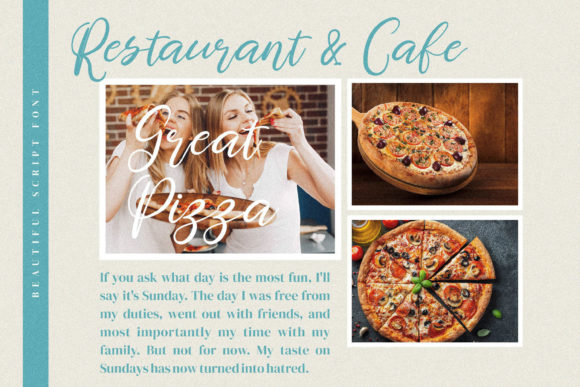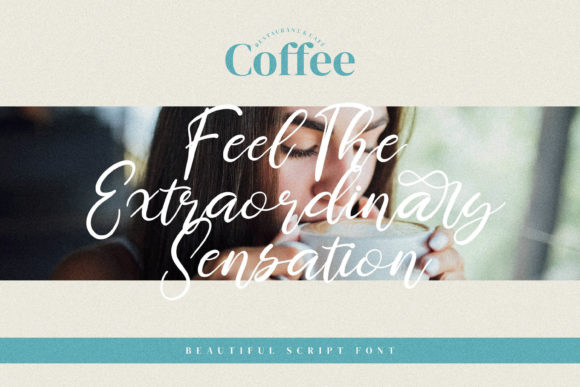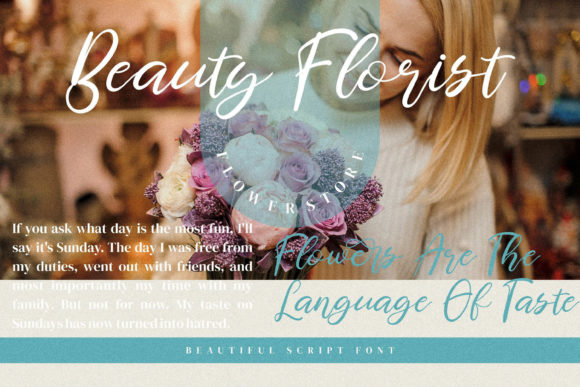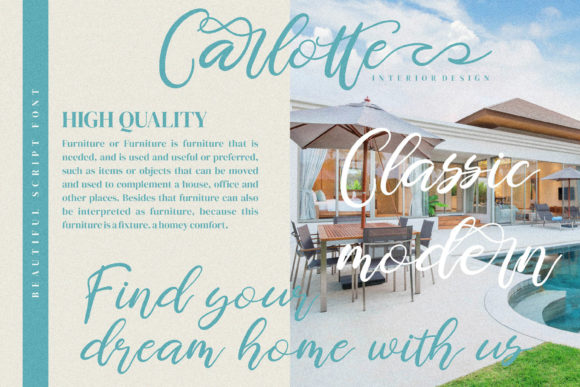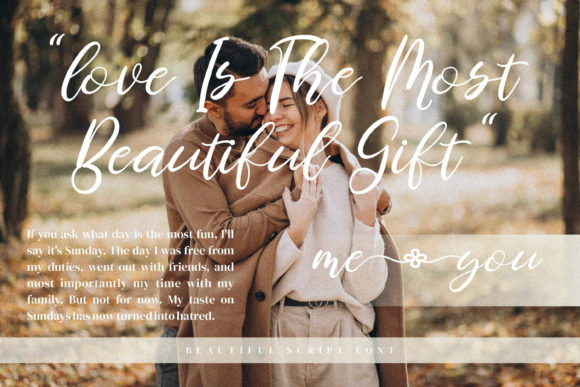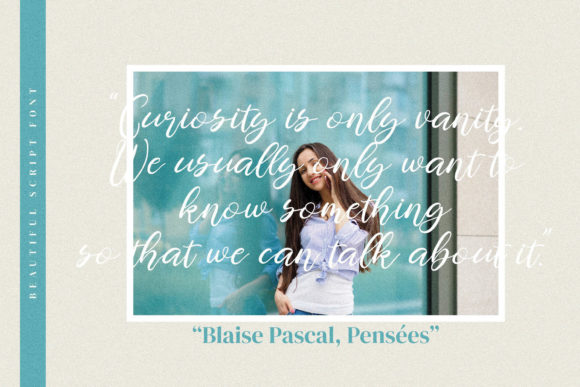
Introduction to Pettiara Font
Pettiara is an enchanting handwritten font.
This versatile script font has a wide spectrum of applications ranging from greeting cards to headlines and is guaranteed to add a romantic feel to your next project This font is PUA encoded which means you can access all of the beautiful glyphs and swashes with ease.
Pettiara Font offers exceptional quality and versatility, making it a valuable addition to your design toolkit. Whether you’re creating for personal projects or commercial use, Pettiara Font delivers professional results.